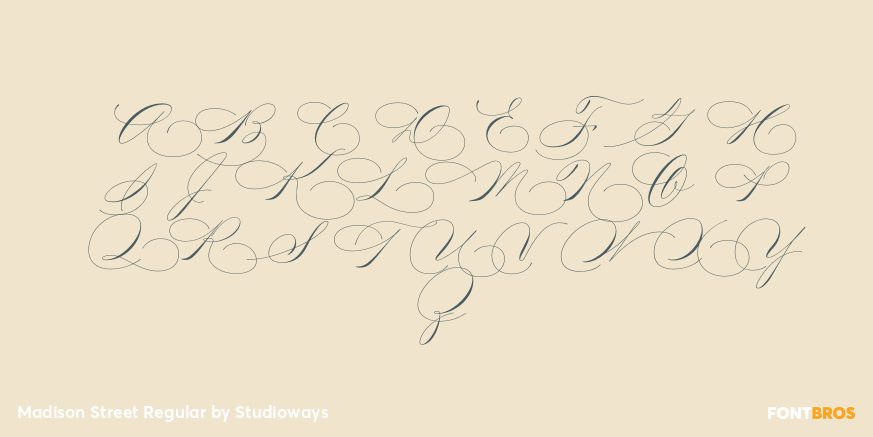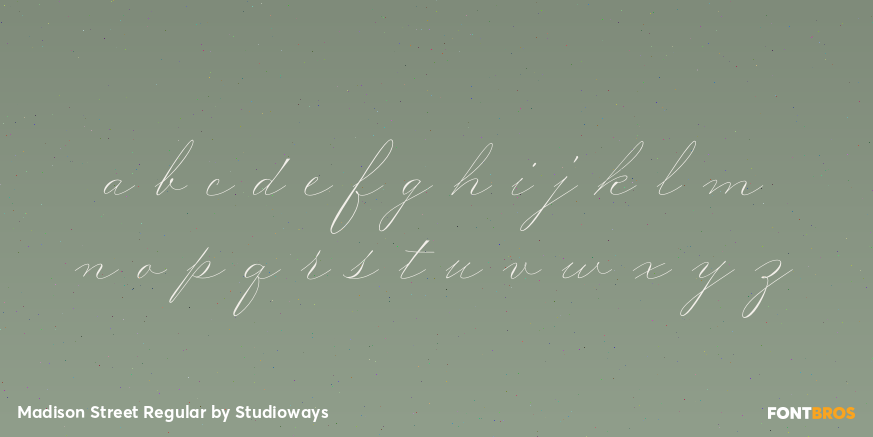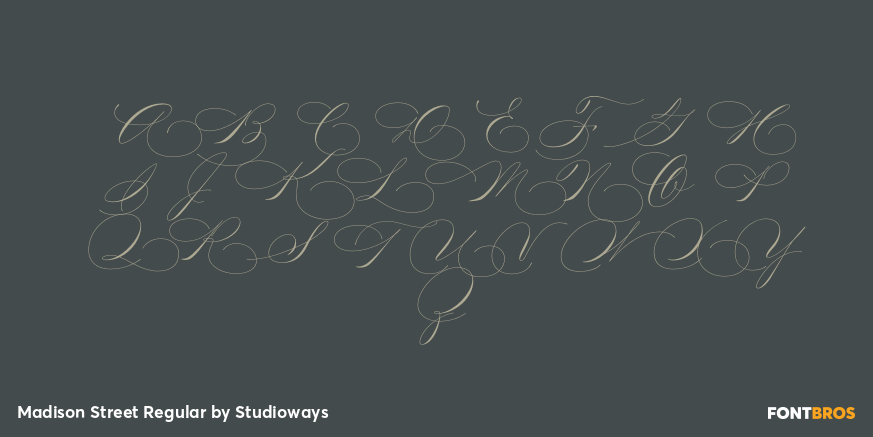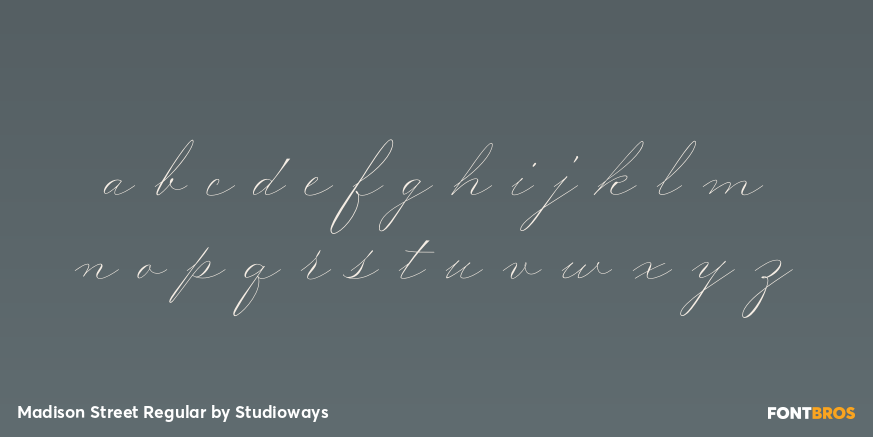
Madison Street Regular
Madison Street Regular is a toned-down version of Madison Street Pro, with fewer bells and whistles. You can still create beautiful pieces with this Spencerian script font. There are a limited number of ligatures, and a few lowercase alternates that are used when those letters are doubled up.
Madison Street Regular supports an extended European character set.